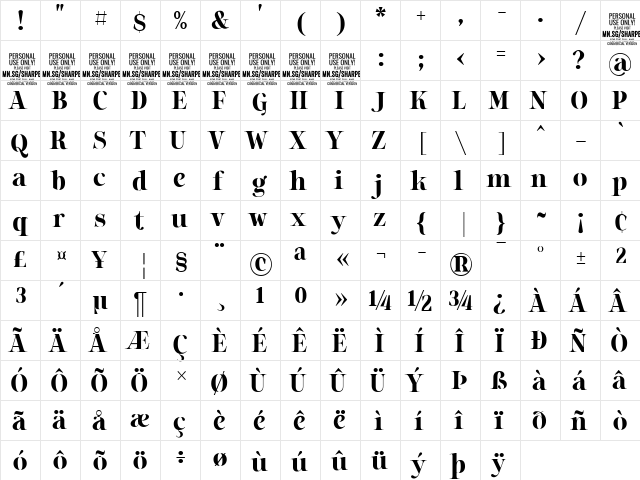
Sharpe PERSONAL Bold
| Foundry | Mans Greback |
| Designer | Mans Greback |
Design Context for Sharpe PERSONAL Typeface
Sharpe PERSONAL takes a measured approach to typography — its balanced proportions and neutral character make it a reliable workhorse for both digital and print work. The heavy weight commands attention and anchors typographic hierarchies.